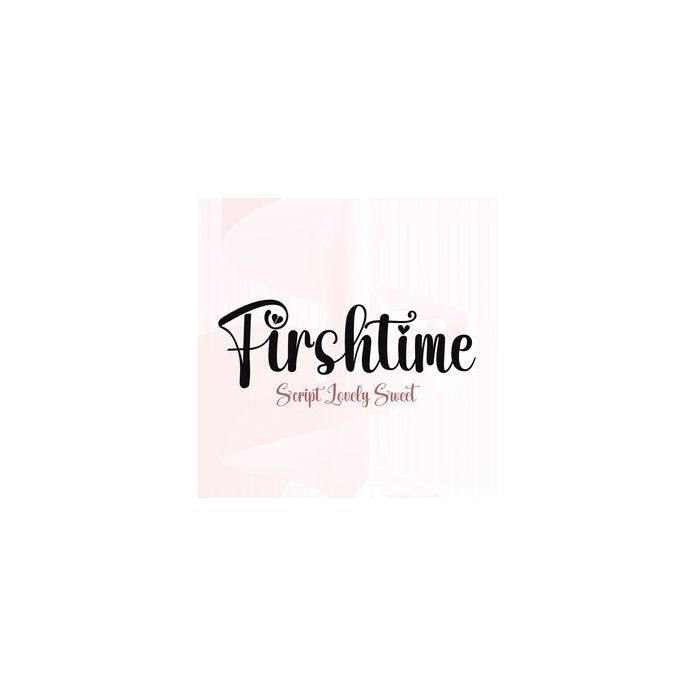
Firshtime My favorite font for inspiration for a teacher's callihraphy style with an original and natural look, very casual for today's women's style. Perfect for projects, products, crafts, invitations and personalization. Includes alphabet, numbers, and punctuation.